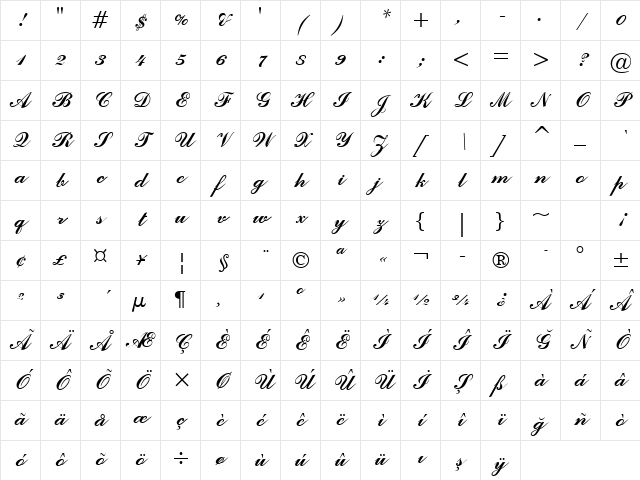
CommercialScript BT Regular
CommercialScript BT Family
Complete CommercialScript BT Regular glyph index. Displaying only characters natively supported by CommercialScript BT Regular font.
Design Context for CommercialScript BT
CommercialScript BT flows with the natural rhythm of handwritten lettering, making it ideal for designs that call for warmth and personal expression.
Font Pairing: Combine CommercialScript BT with a simple geometric sans for maximum contrast - the tension between flowing curves and clean structure is a classic typographic pairing.
Pro Tip: Use CommercialScript BT for short runs of text - names, titles, or taglines. Extended body copy in script faces tires the eye quickly.